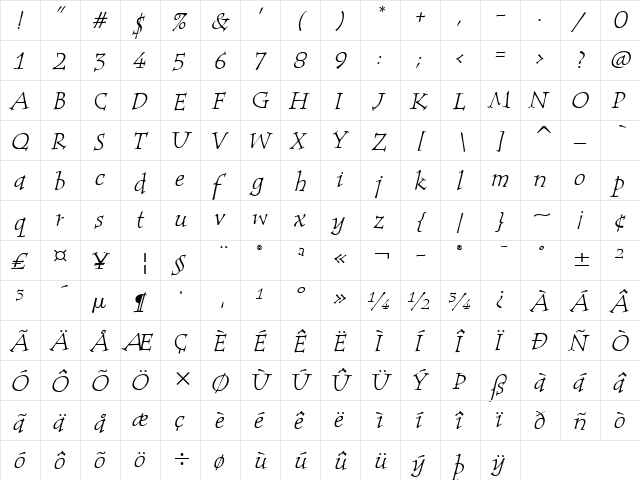
Tempus ITC Italic
Design Context for Tempus ITC Typeface
Tempus ITC offers clean, dependable letterforms without strong stylistic allegiance, making it a practical choice for designers who need flexibility. The slanted form adds forward momentum and visual energy.
Pro Tip: Try Tempus ITC for annotation and caption copy alongside an upright companion — the contrast in angle creates a dynamic but ordered typographic system.